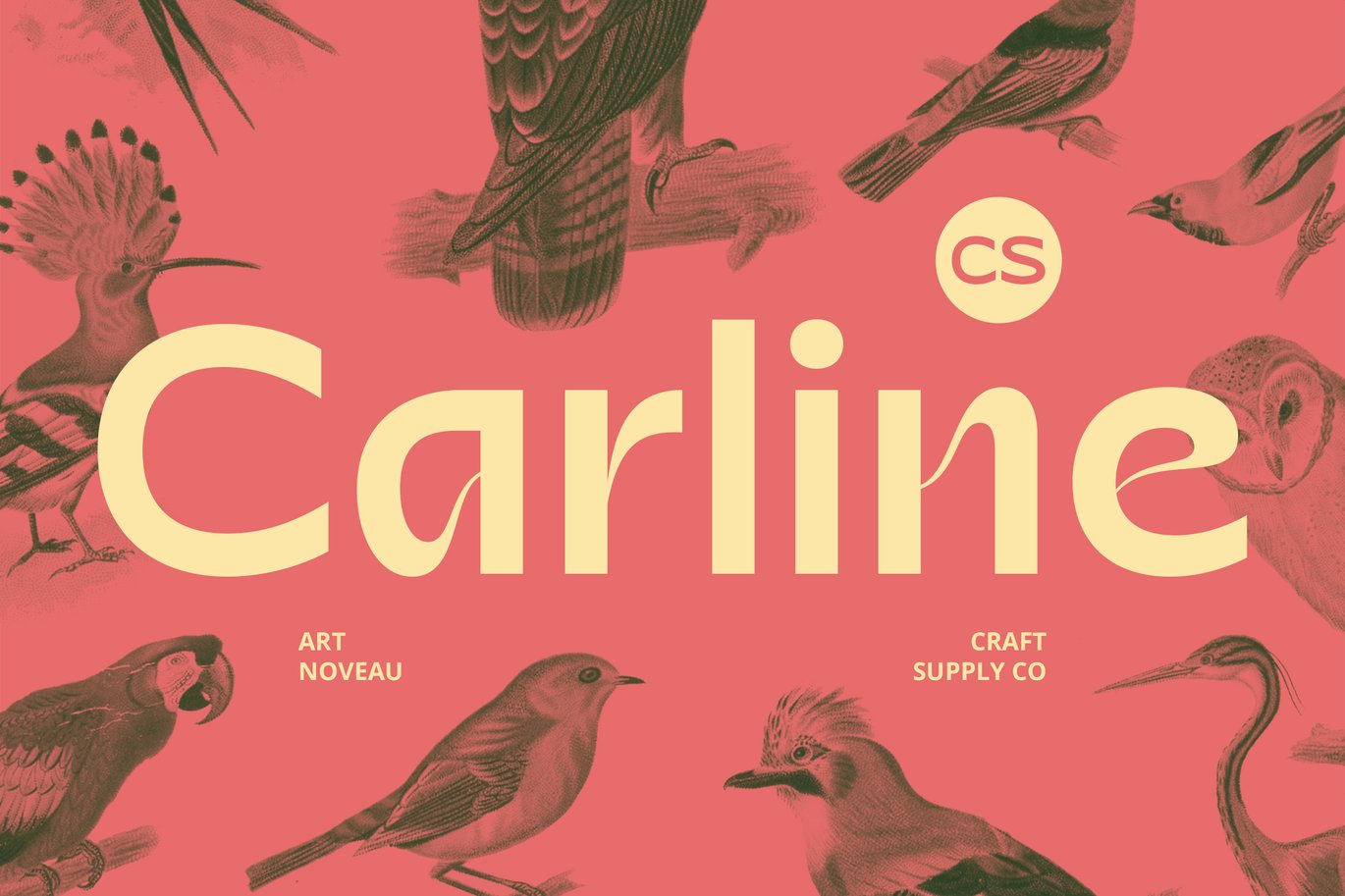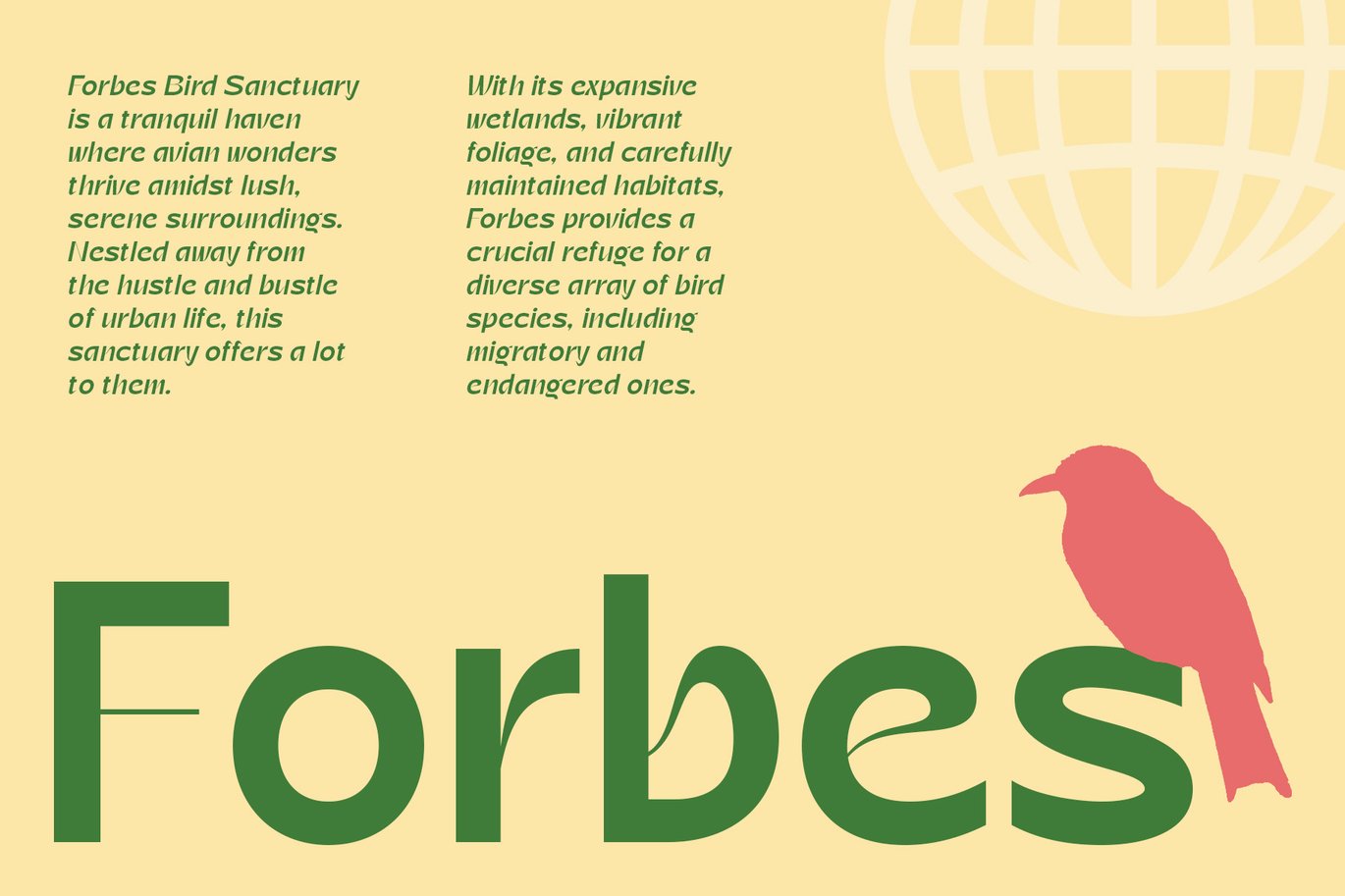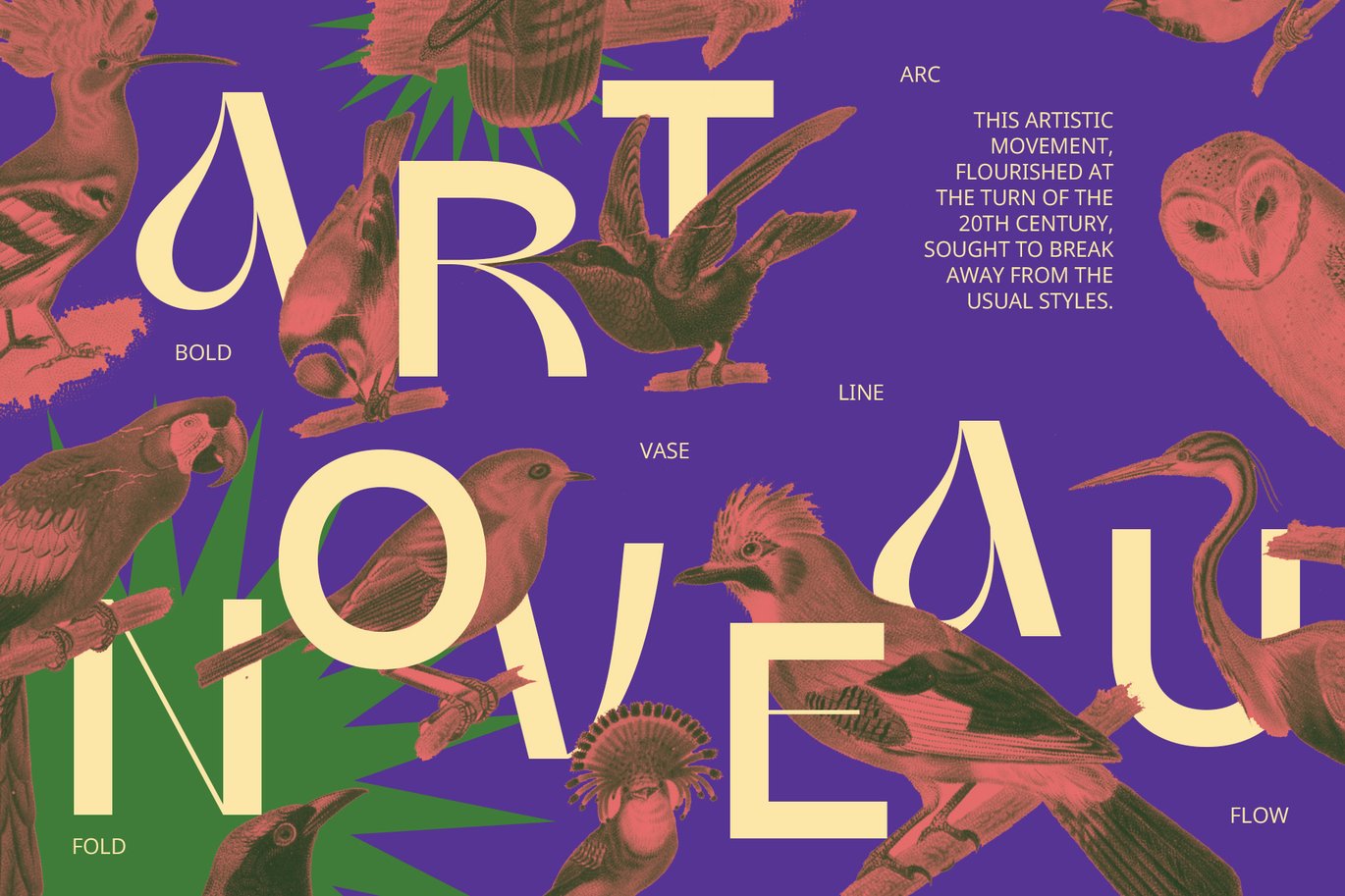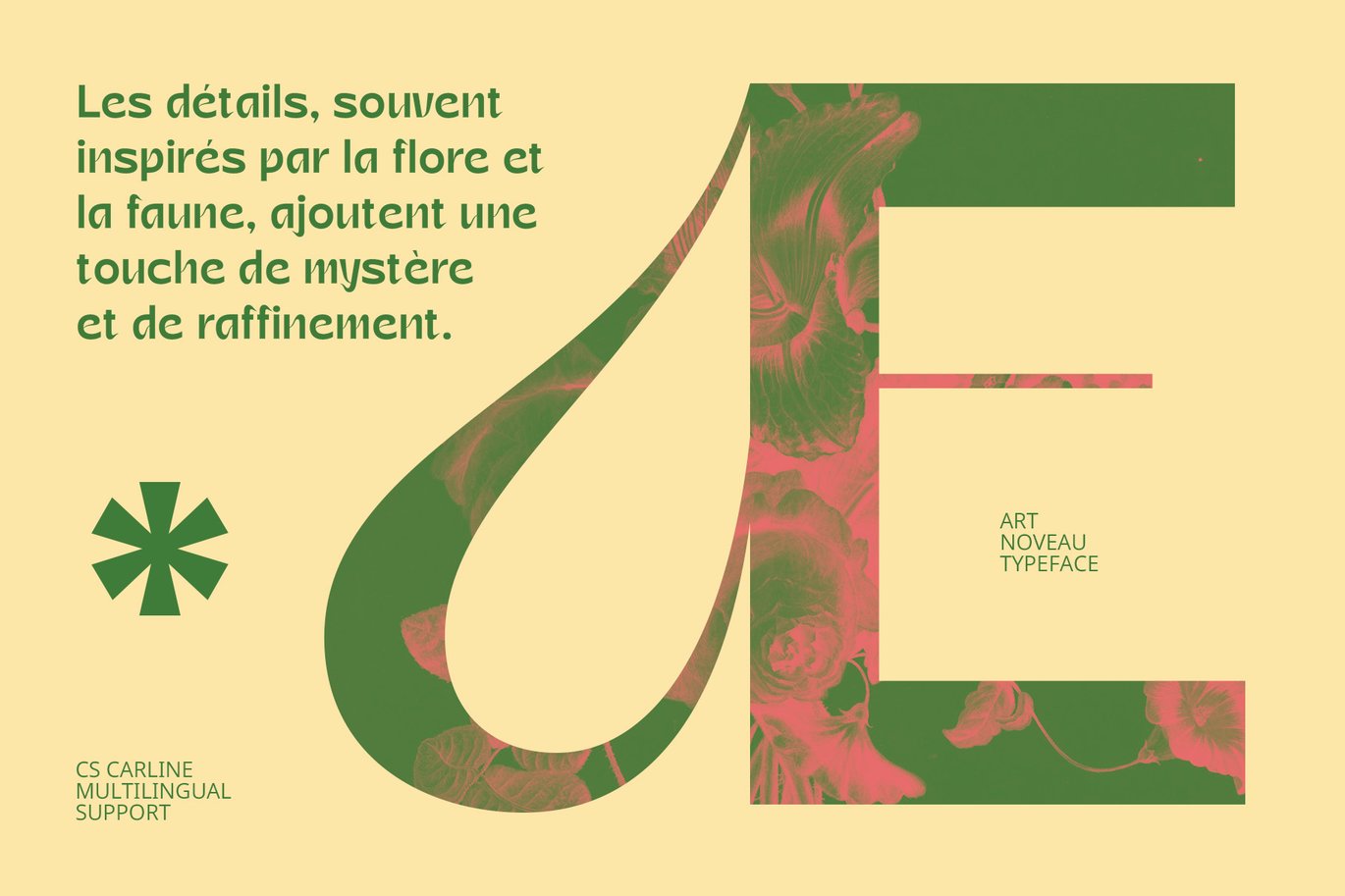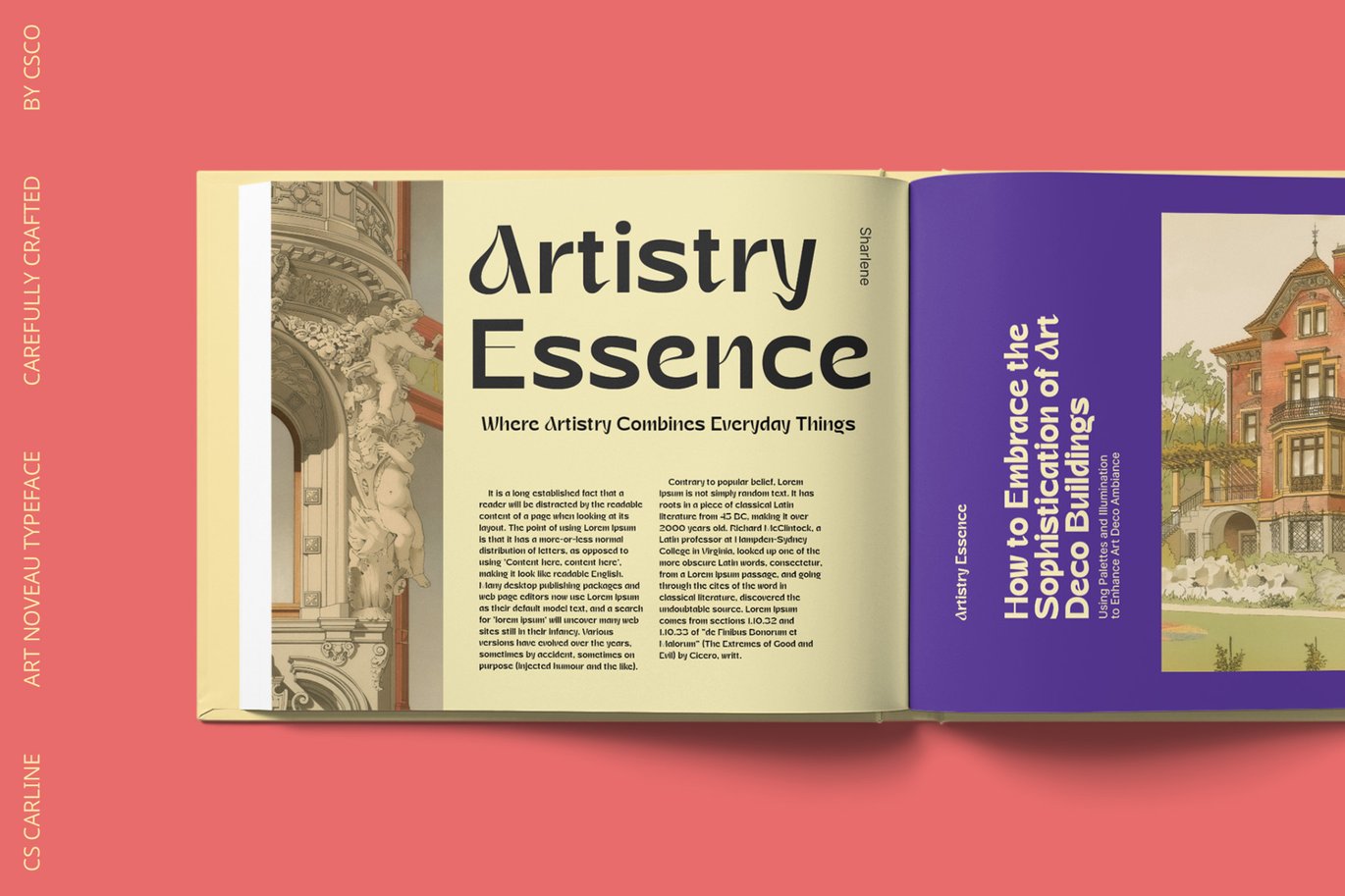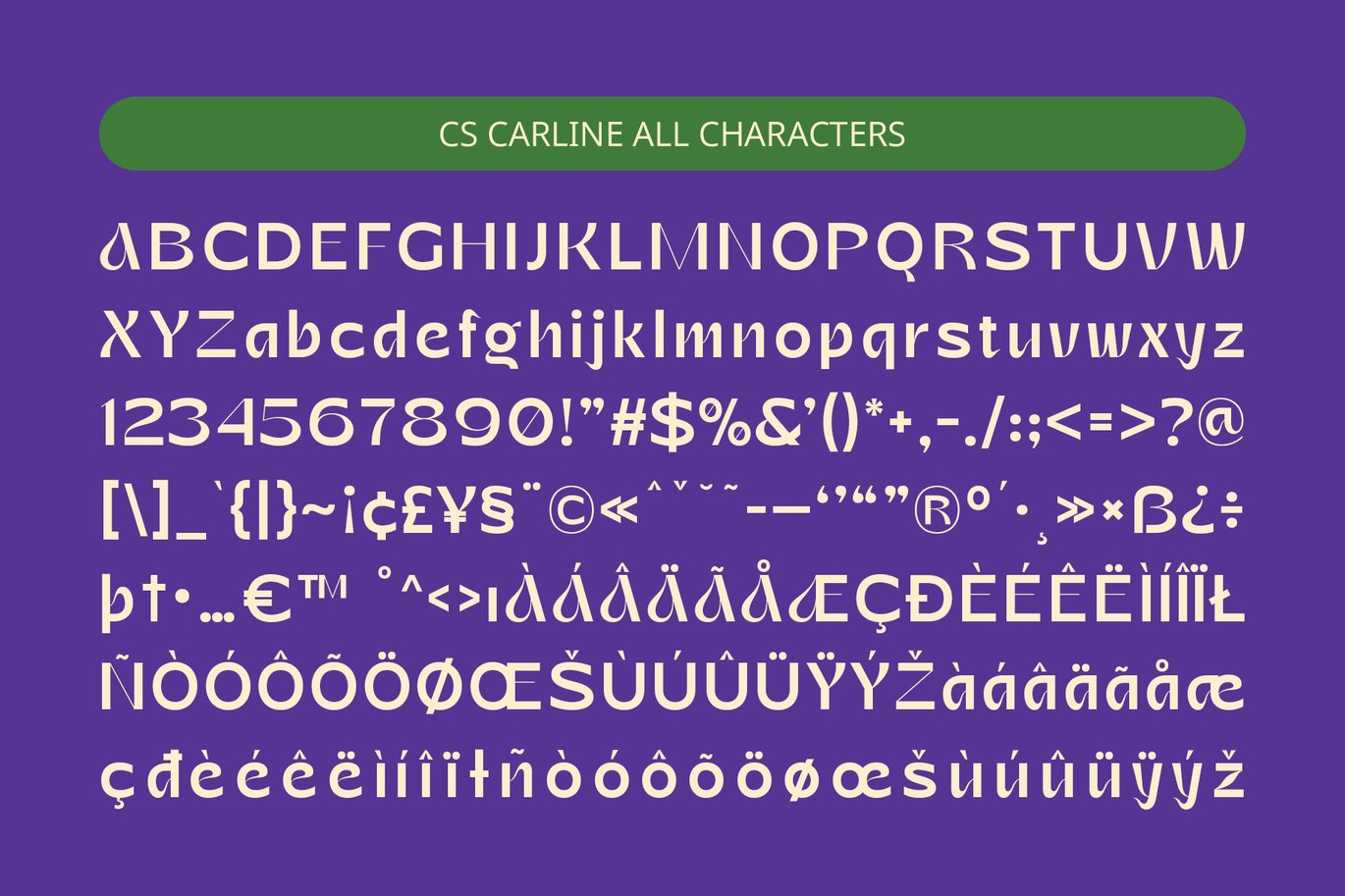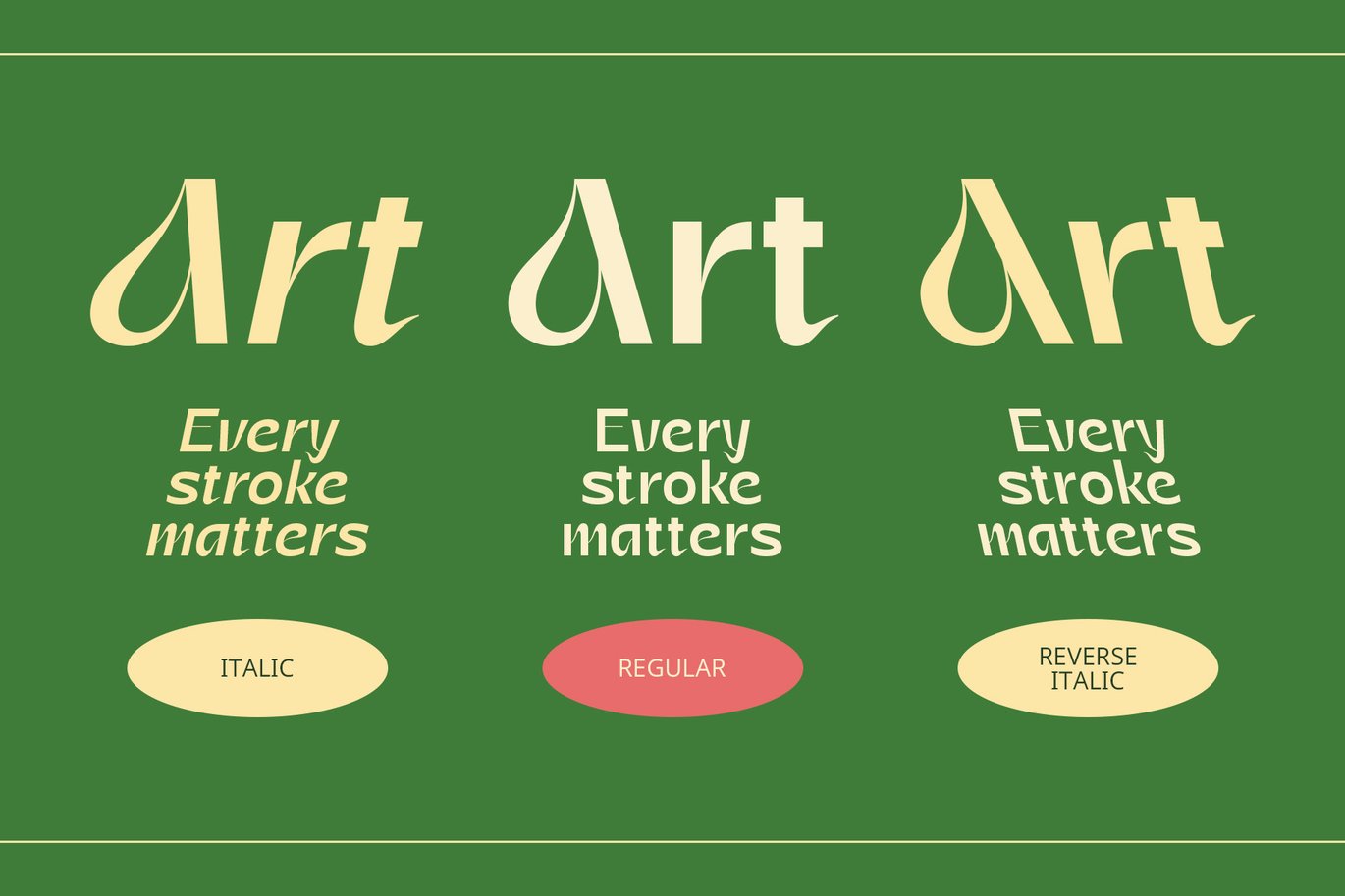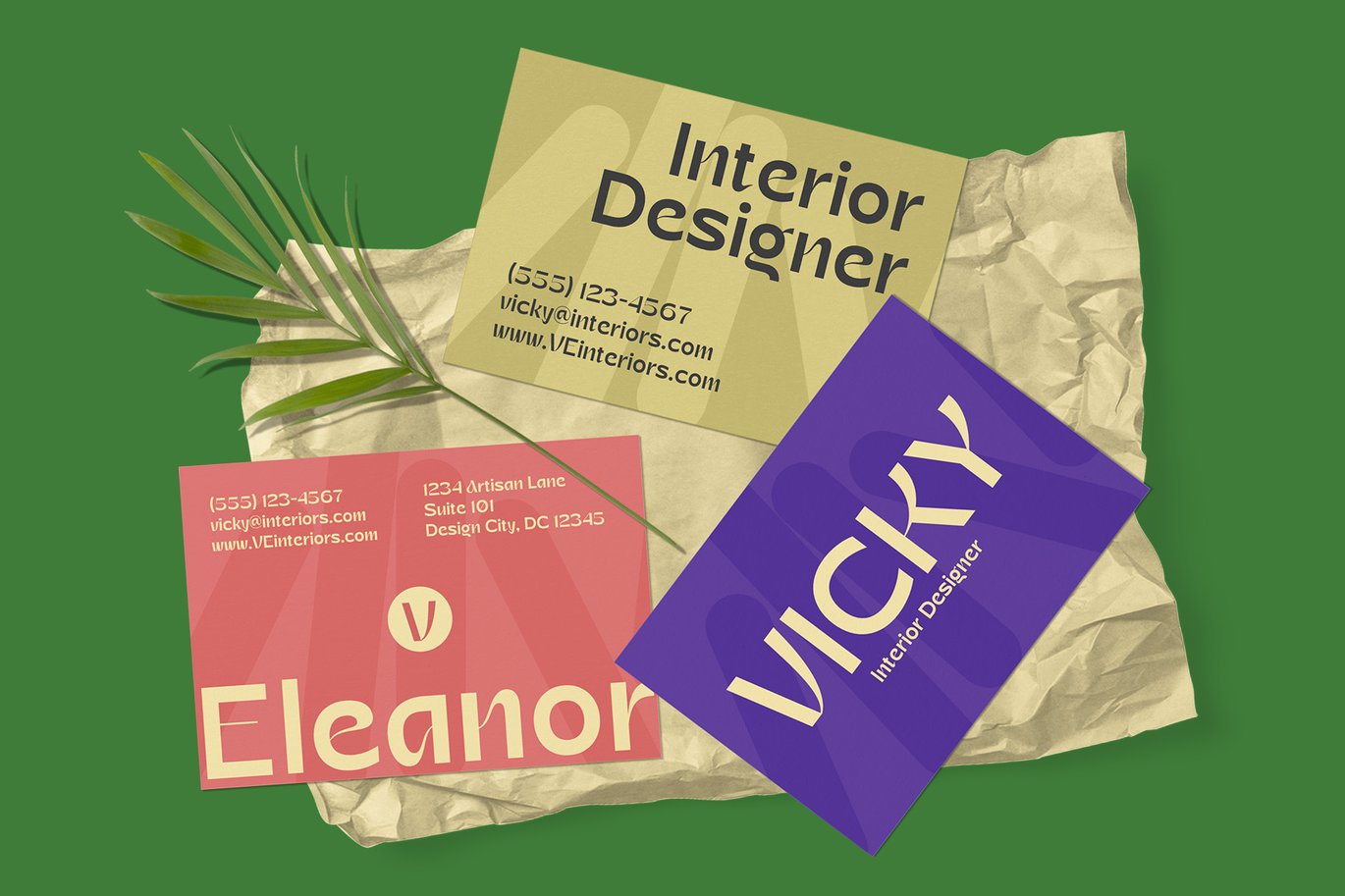
CS Carline – Art Nouveau Font
CS Carline – Art Nouveau Sans-Serif Font
Elegant Curves and Decorative Details
CS Carline is a modern sans-serif font infused with Art Nouveau style, featuring elegant curves and ornate decorative details. The design harmoniously blends organic beauty with contemporary sophistication, creating a luxurious and artistic impression. The fluid lines and intricate flourishes of CS Carline evoke the grace of early 20th-century decorative art while maintaining a fresh and modern appeal.
Refined and Artistic Impression
Perfect for applications that require a touch of natural beauty and refinement, CS Carline excels in enhancing both interior design and promotional materials. Its elegant and artistic characteristics bring a sense of luxury and sophistication to a variety of projects. Whether used in upscale branding, high-end invitations, or creative marketing, this font adds a distinctive and refined aesthetic to any design.
Versatile for Modern and Elegant Design
CS Carline is versatile and ideal for creating spaces and materials that highlight a blend of modern elegance and artistic charm. Its graceful curves and decorative elements make it an excellent choice for projects that aim to captivate with a touch of classic beauty in a contemporary context. From interior design to promotional campaigns, CS Carline provides a sophisticated and enchanting visual experience.